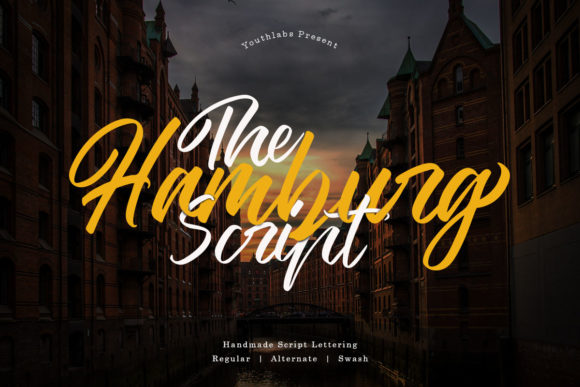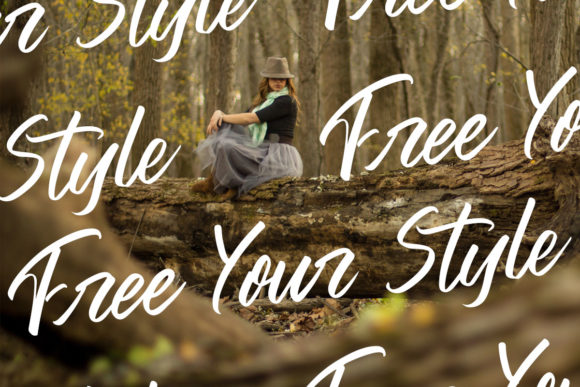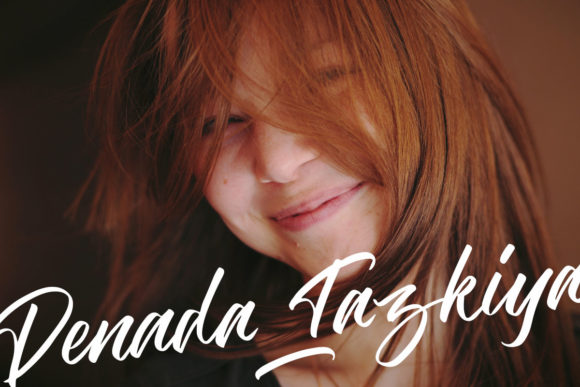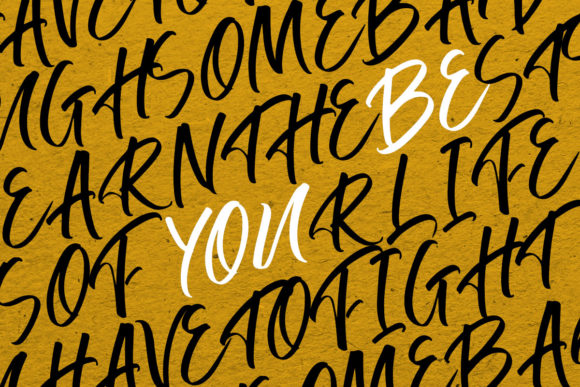
The Hamburg Script Font
About The Hamburg Script Font
The Hamburg is a traditional calligraphy script. It was handmade with a brush-pen, and is great for photography, watermarks, social media posts, advertisements, logos & branding, invitations, product designs, labels, stationery, wedding designs, and every other design which needs a handwritten touch.